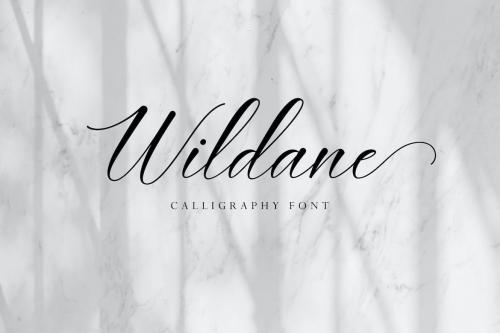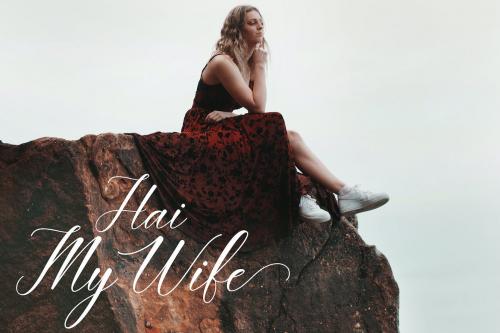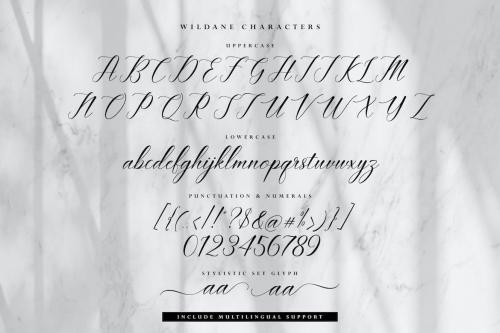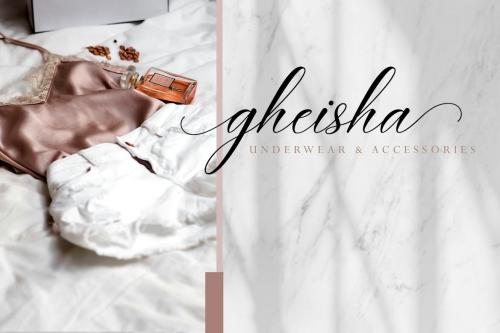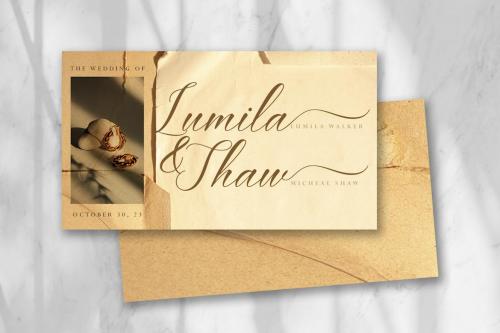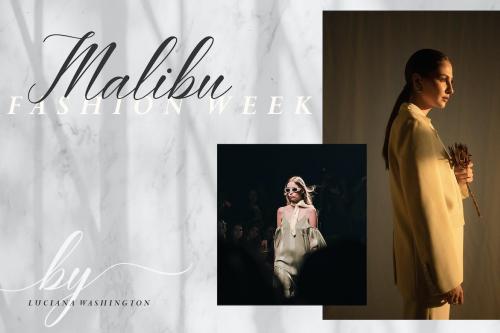
Wildane | Calligraphy Font
This is a Modern Calligraphy font with a elegant italic style, and contains soft and neat glyph characters!
With a style like this, this font will be suitable in use for logo''s, branding projects, homeware designs, product packaging, mugs, quotes, posters, shopping bags, logo''s, t-shirts, book covers, name card, invitation cards, greeting cards, and all your other lovely projects.